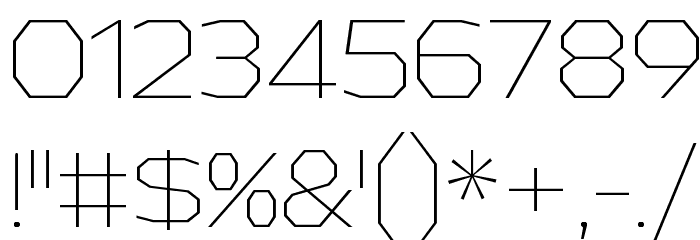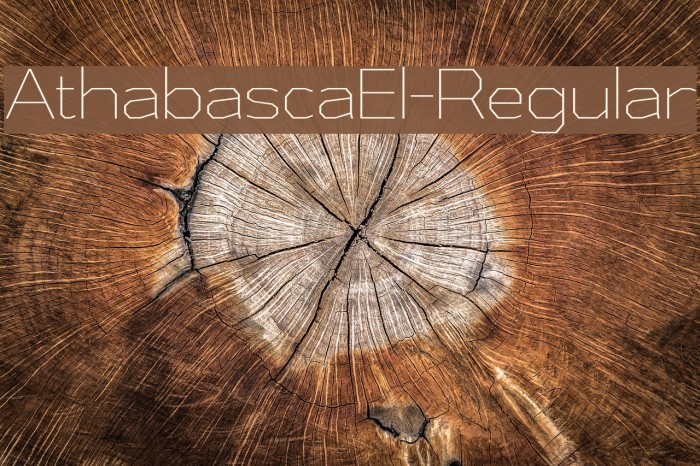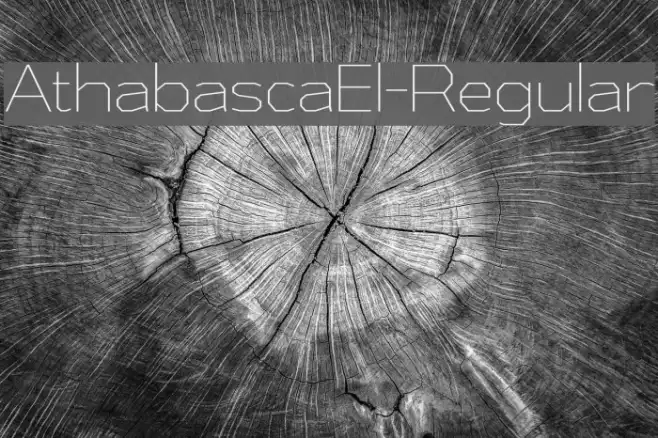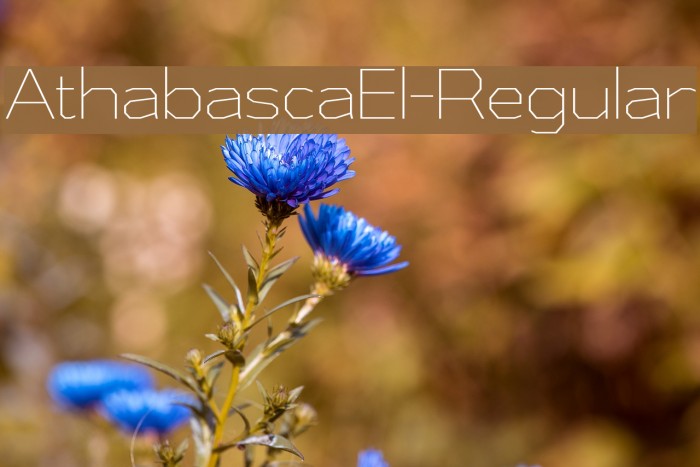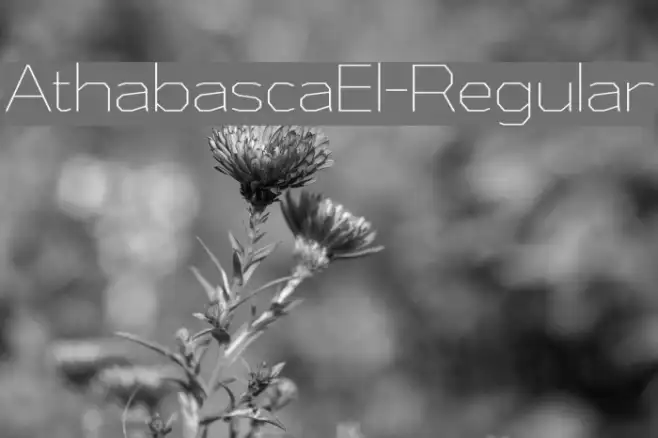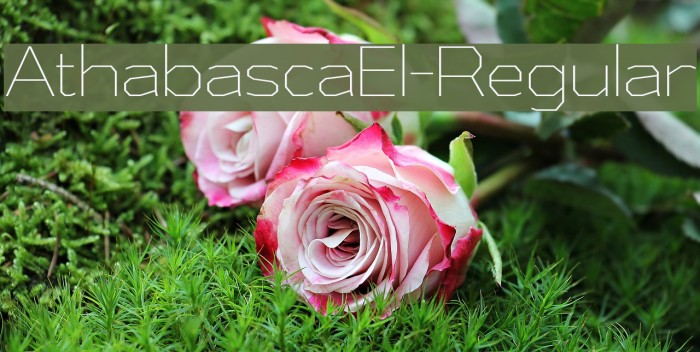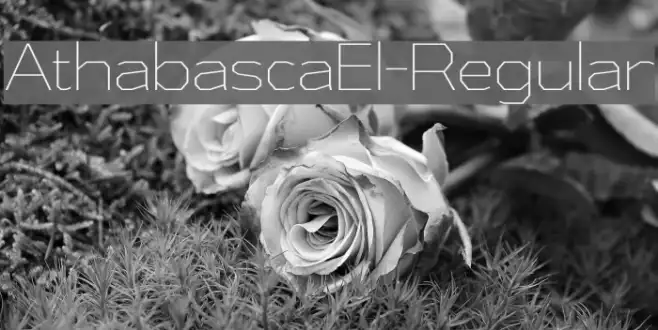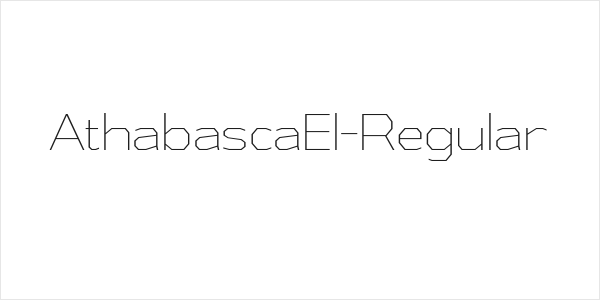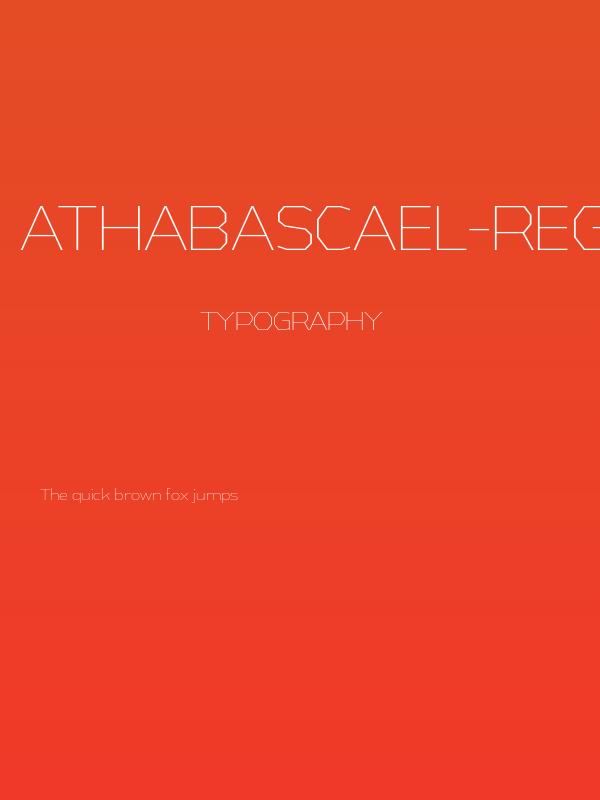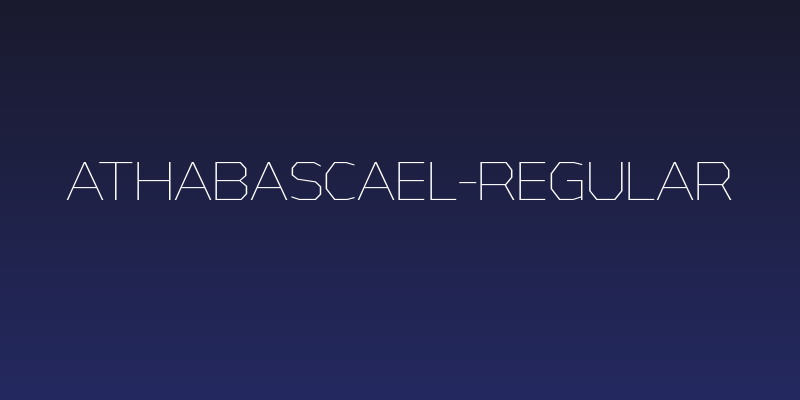
AthabascaEl-Regular Font
AthabascaEl-Regular Description
This font features a geometric and angular design, characterized by its sharp edges and straight lines. The uppercase and lowercase letters maintain a consistent structure, with a modern and minimalist aesthetic. The numerals and special characters follow the same design principles, ensuring uniformity across all glyphs. The font's clean and precise lines make it suitable for contemporary design projects, where clarity and simplicity are desired. Its unique style is both eye-catching and functional, making it a versatile choice for various applications.
| Proposed Projects | Ideal for tech branding, modern posters, digital interfaces, and architectural designs. |